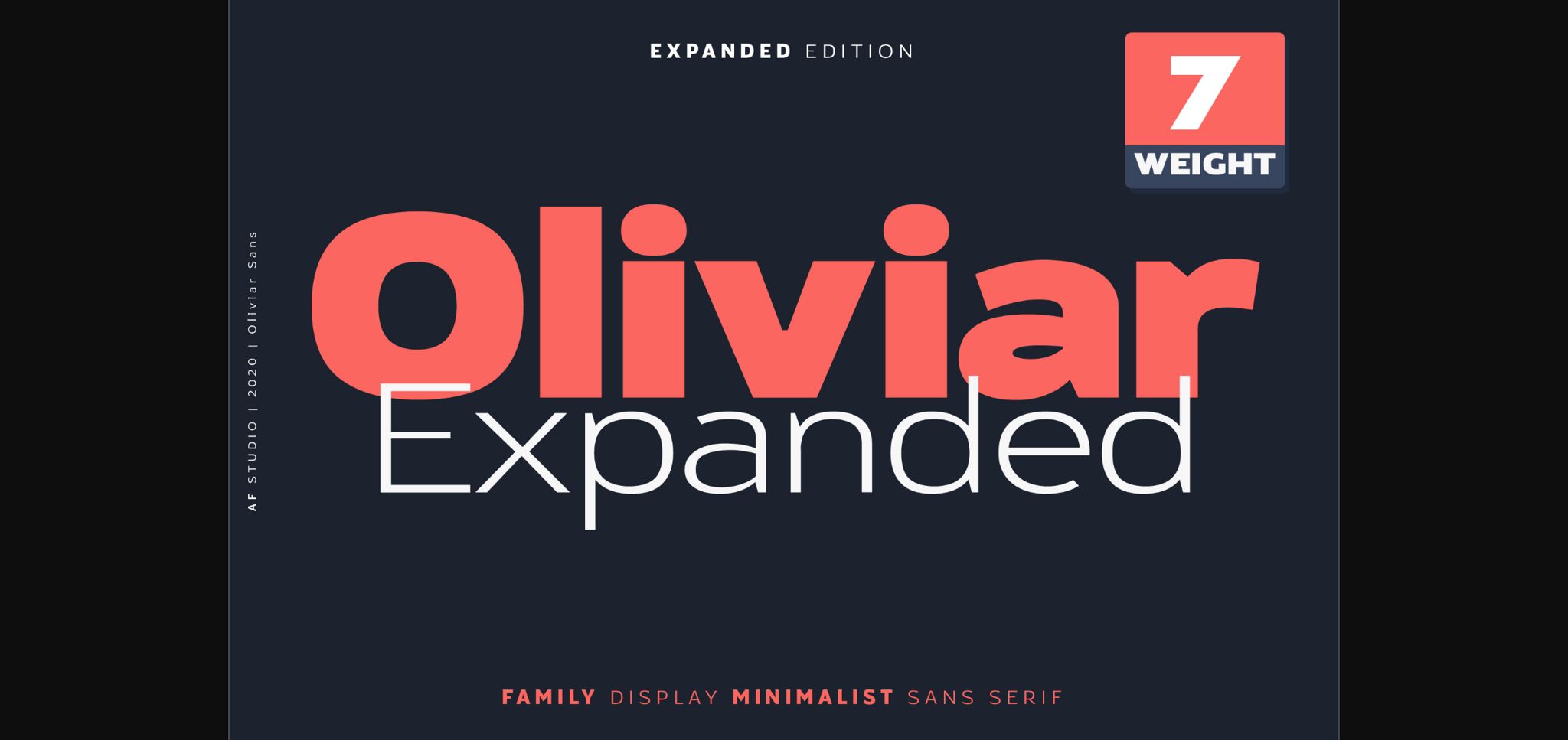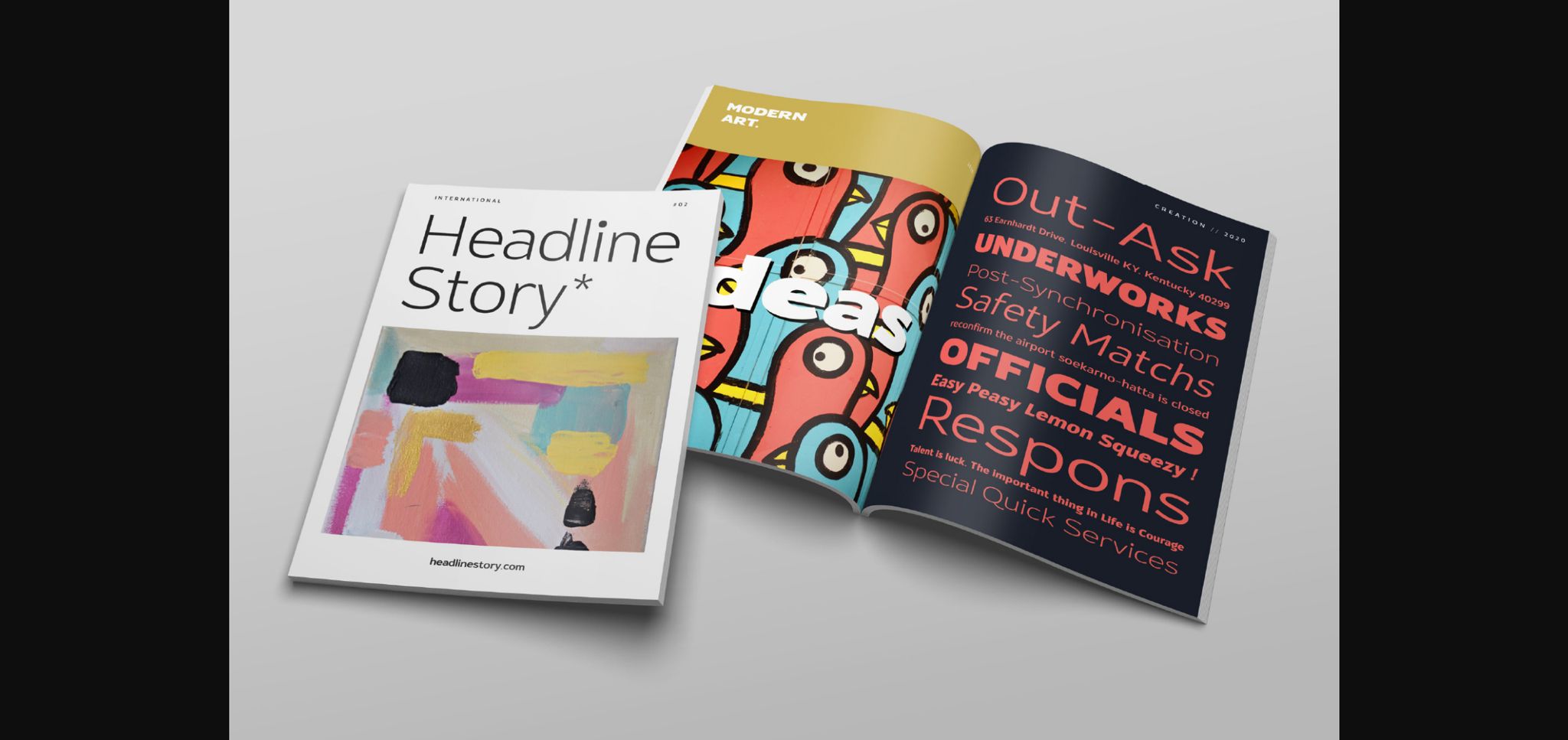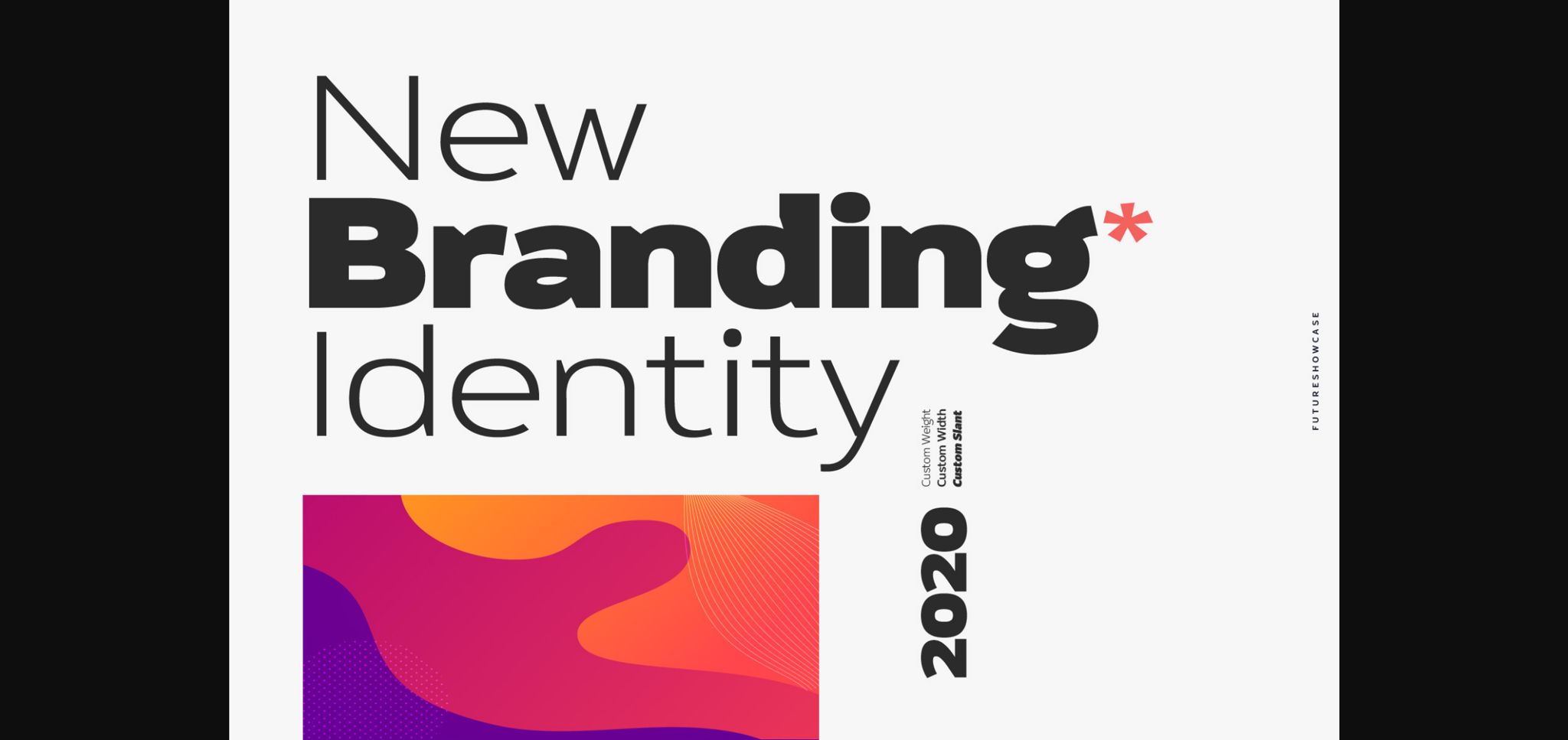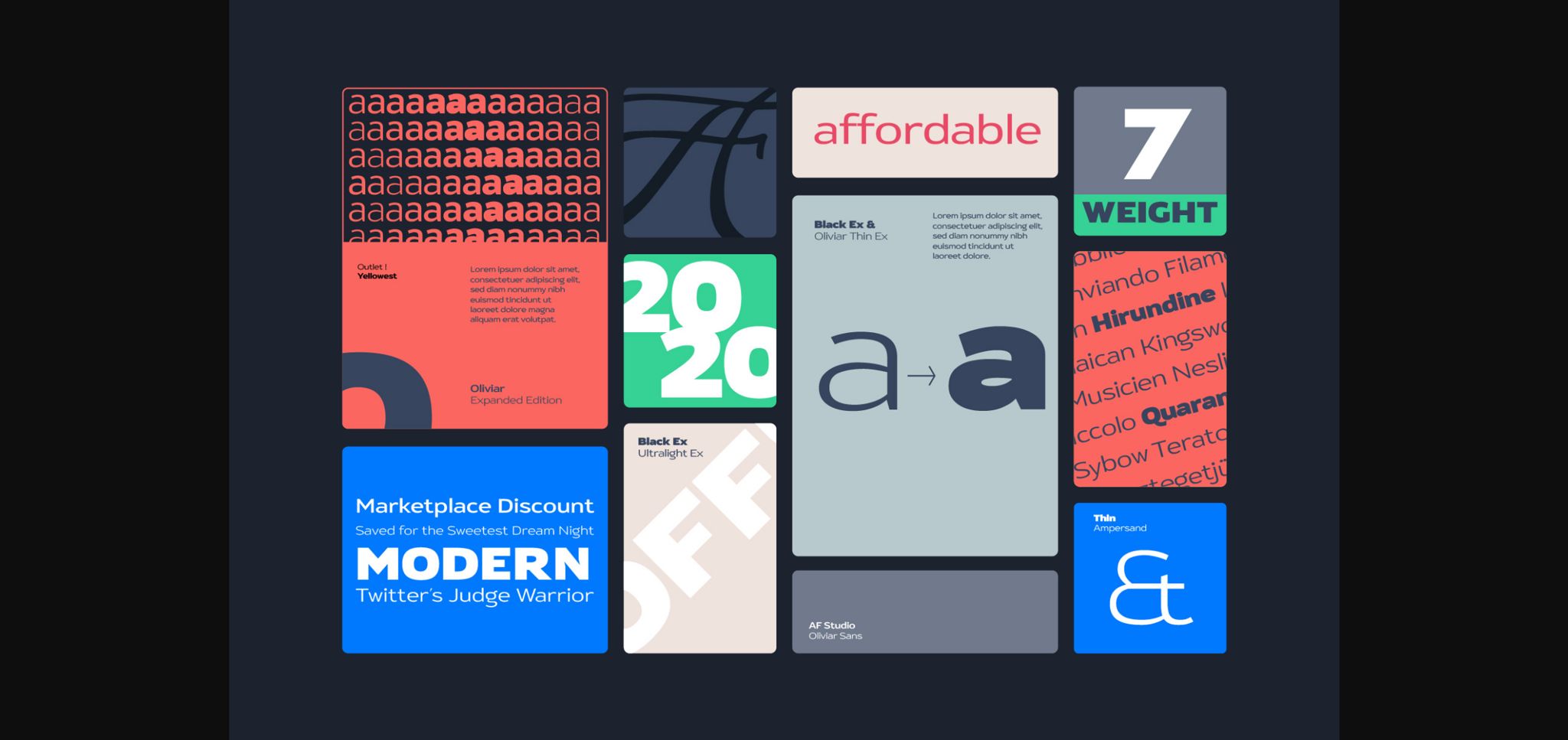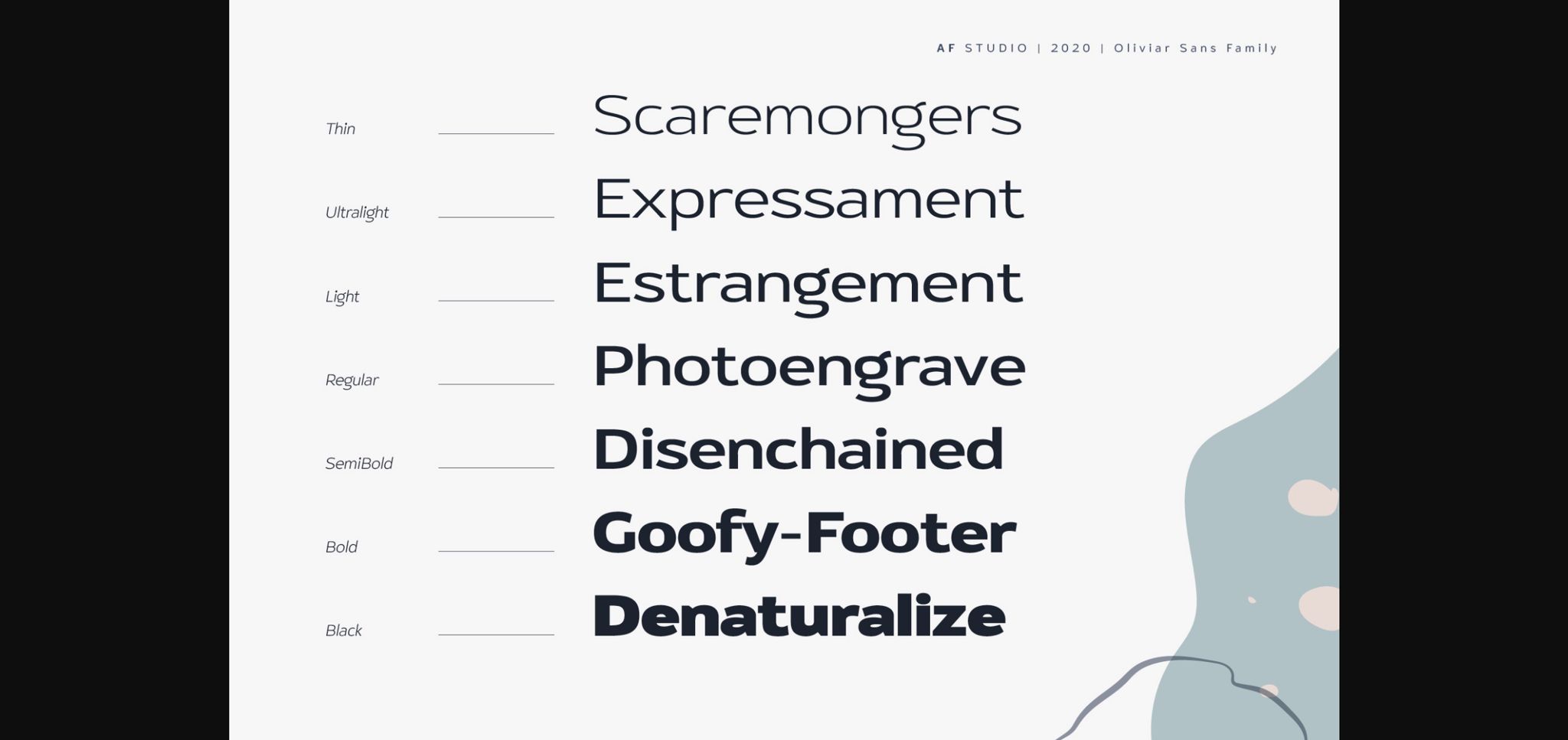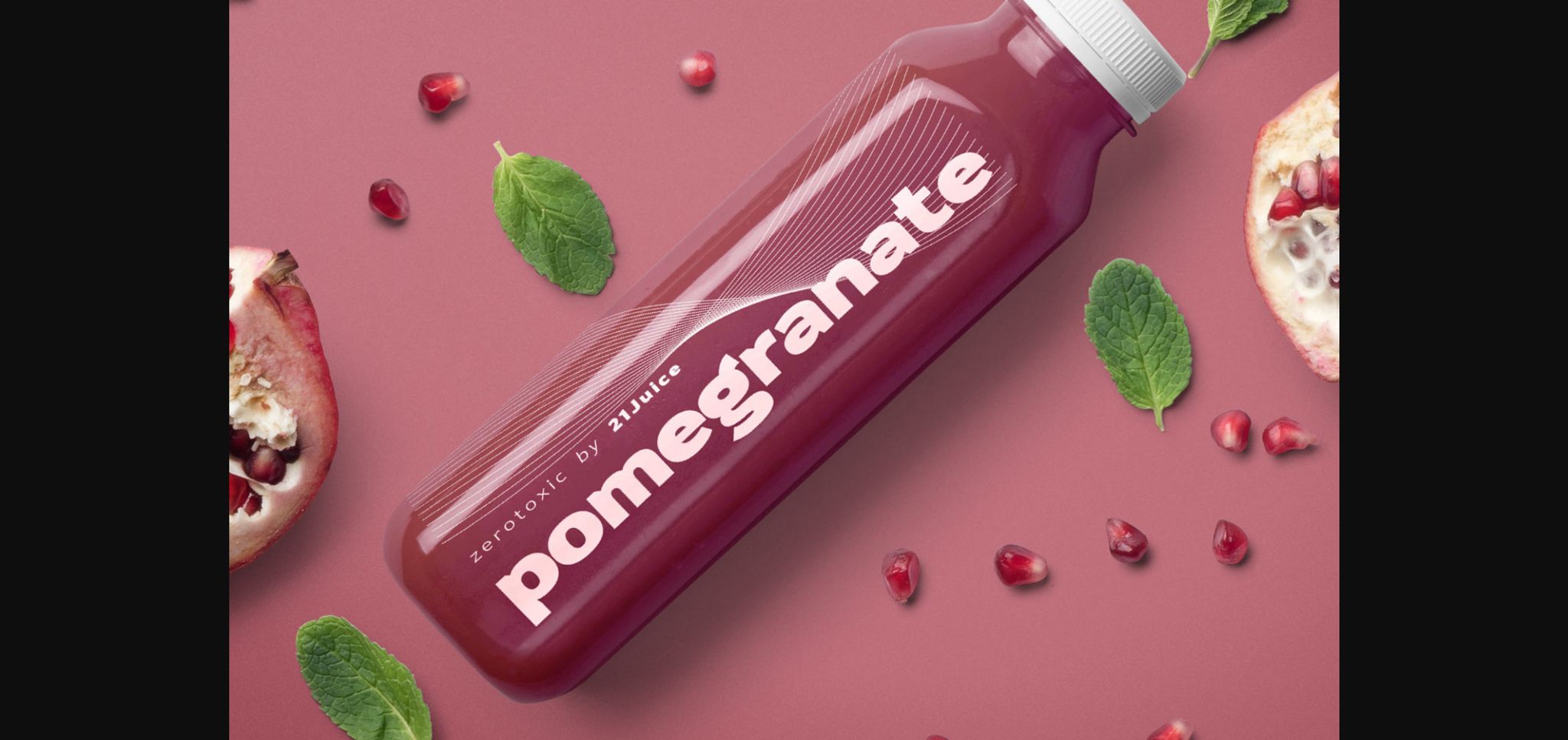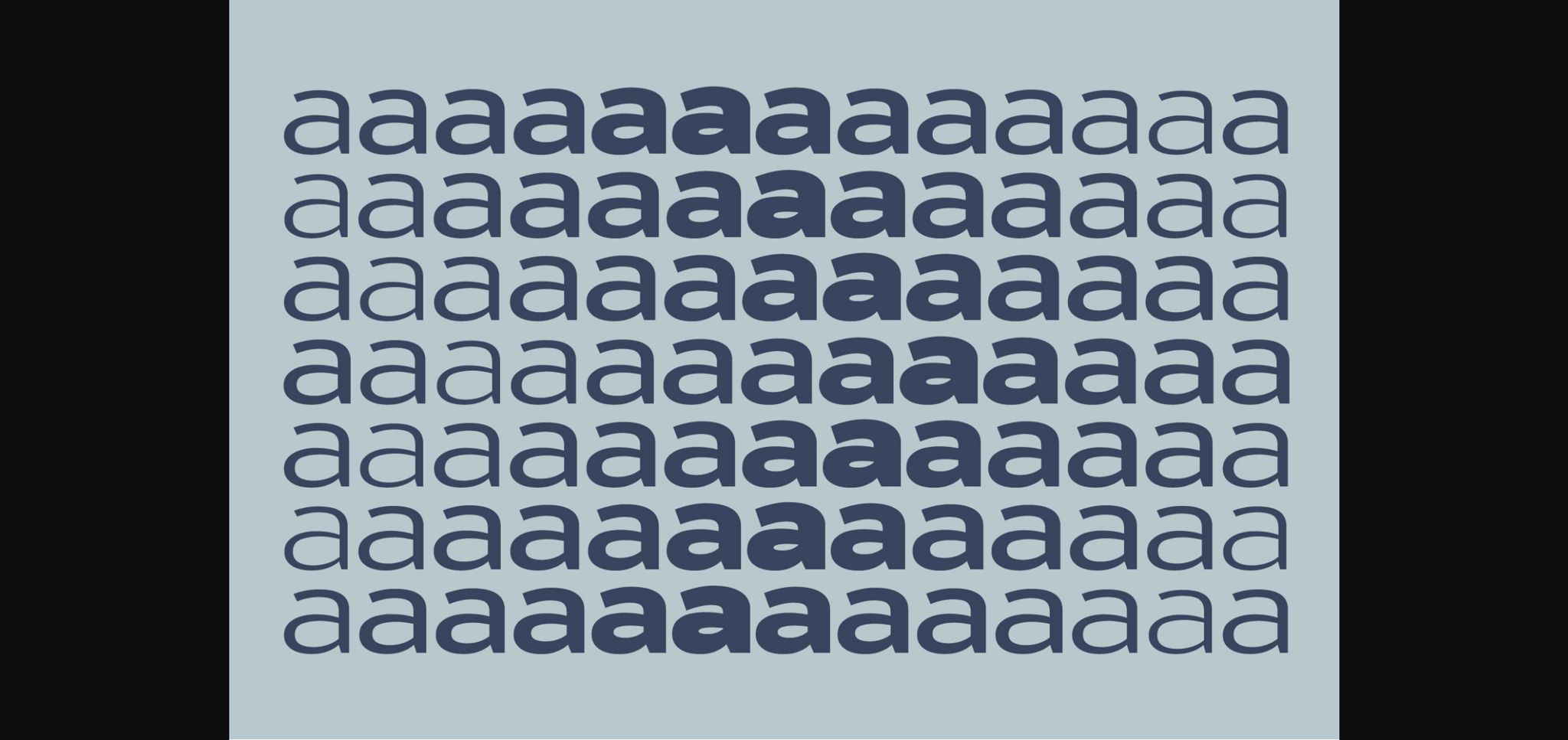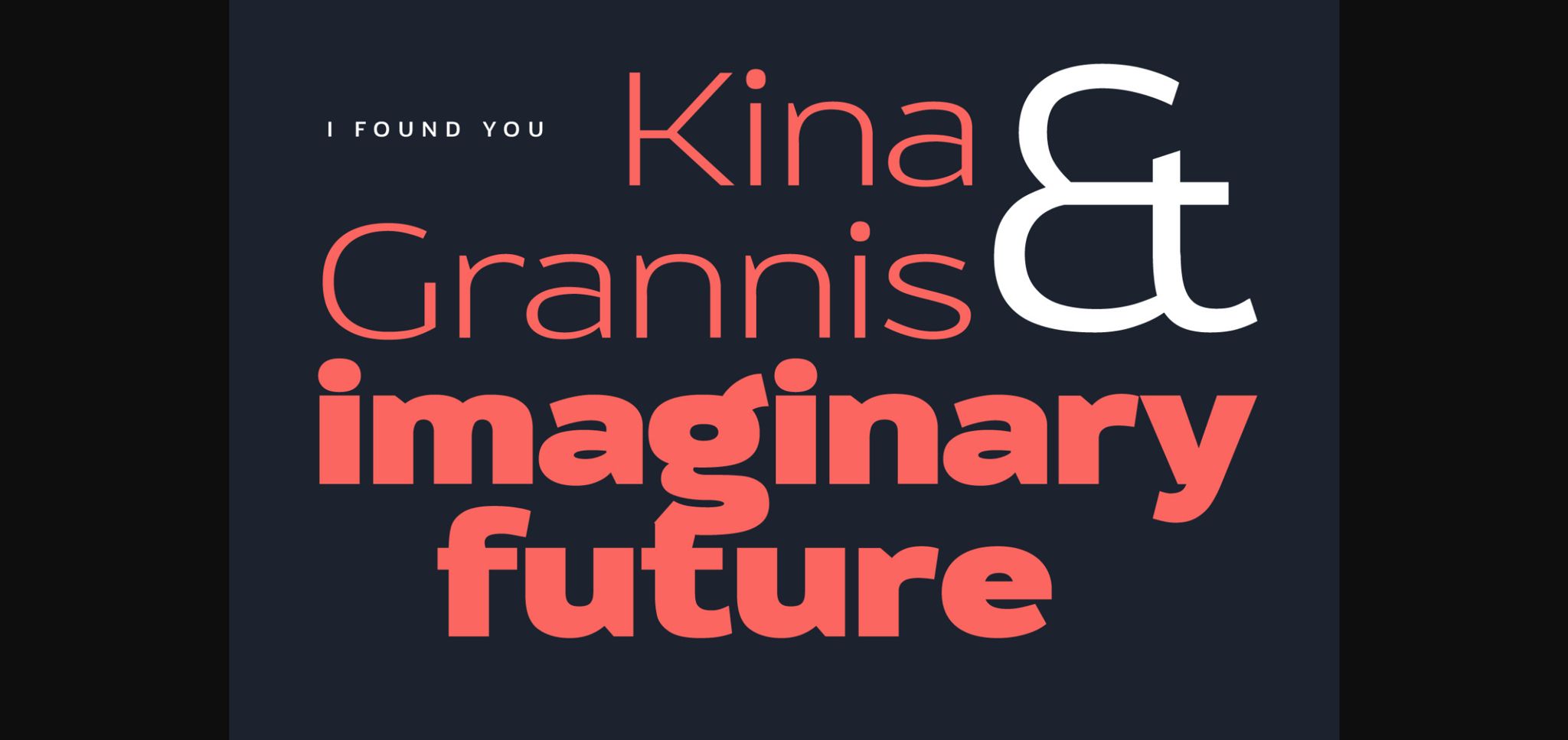
Oliviar is a bold and neat lettered sans serif font. It can easily be matched to an incredibly large set of projects, so add it to your creative ideas and notice how it makes them stand out!